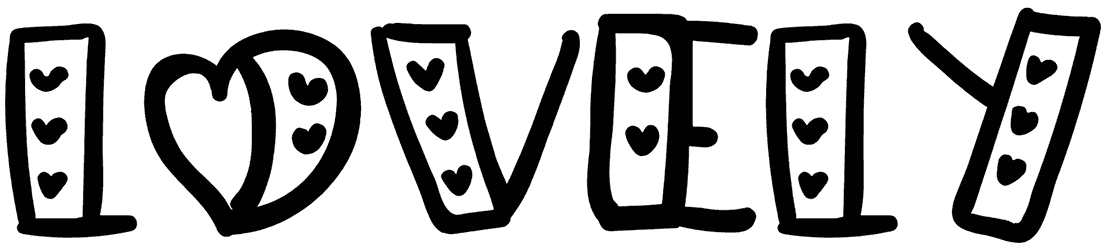
Lovely Font
True beauty is the short description of Lovely, a holiday font that adds a romantic touch to your artwork, including gift cards, invitations, greeting cards, flyers, and illustrations.
The characters of this Valentine font are curved and stretched, so it can elevate your graphic content to a higher level by providing a sense of kindness, affection, dynamism, and vivacity. It is better to overlook the lack of numbers and pick it up immediately.